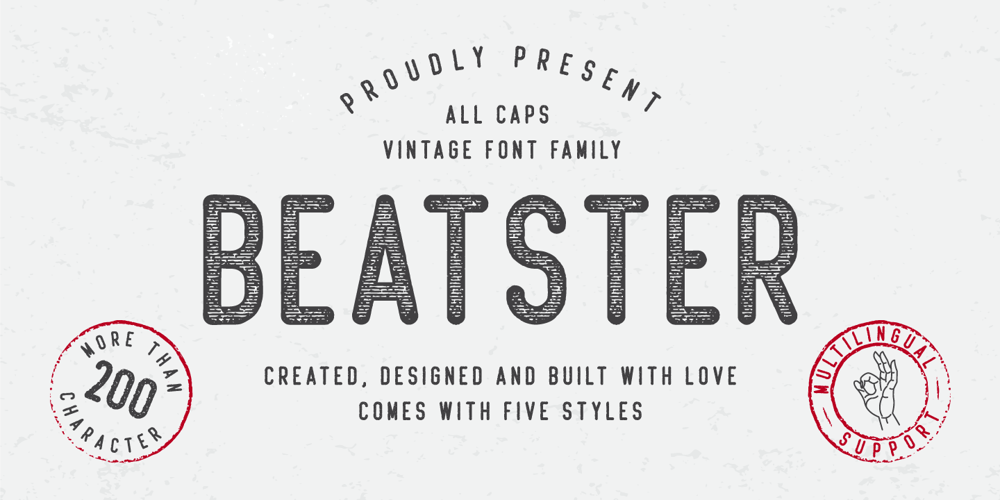
Beatster
Beatster font
Beatster Font Family was designed by Muhammad Hasan and published by MuSan. Beatster contains 5 styles and family package options. Beatster is handmade modern vintage textured display typefaces. It includes Regular, Outline, Grunge, Rough (with complete uppercase, lowercase, and numerals), and Letterpress (uppercase only). All weights have multilingual characters.